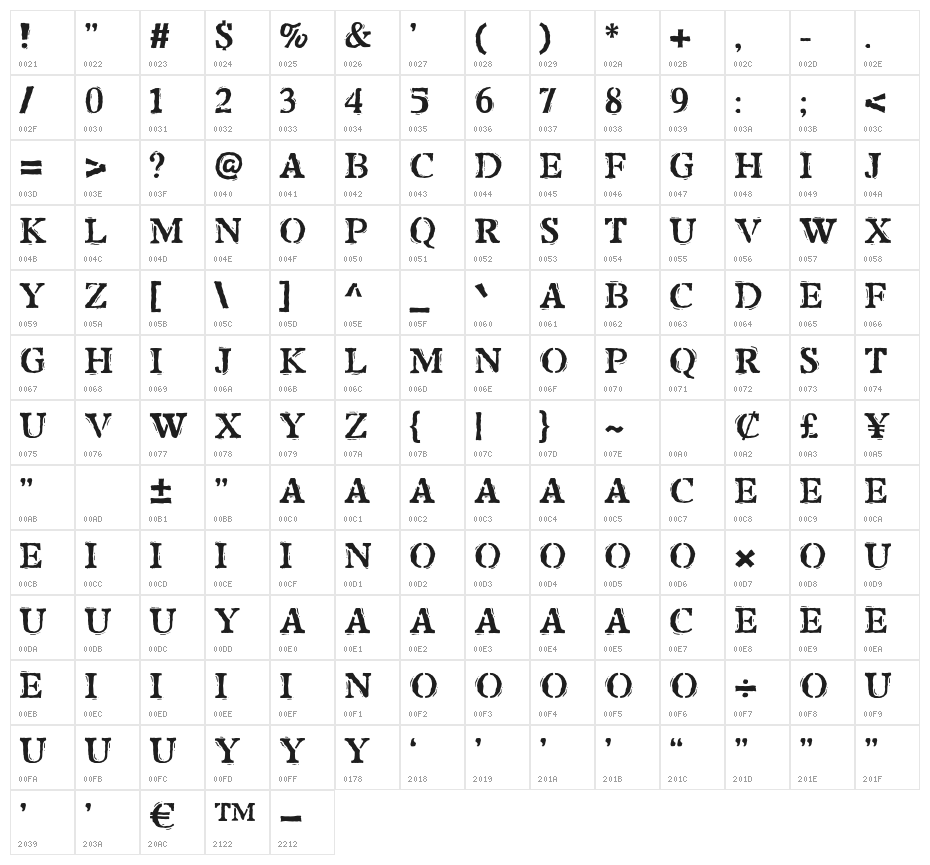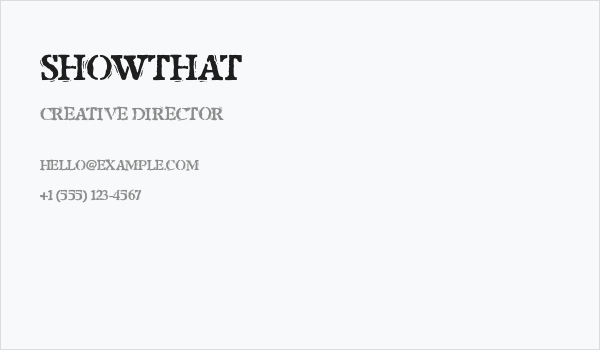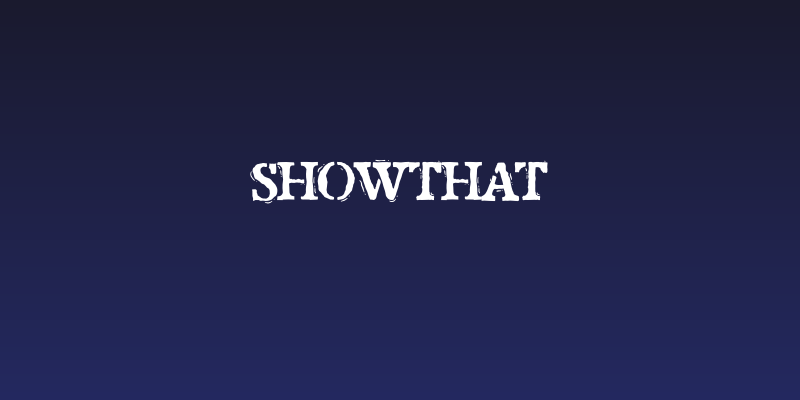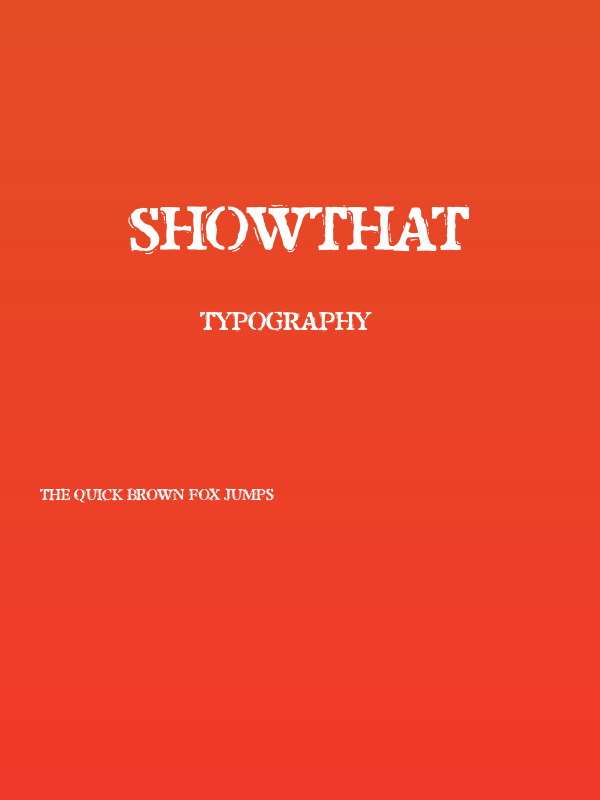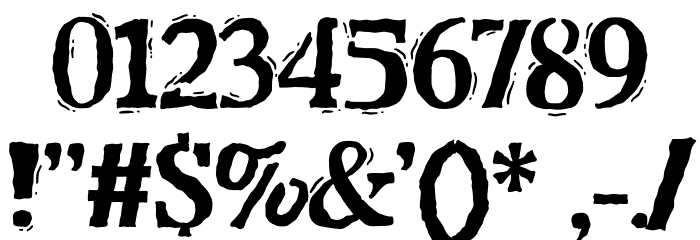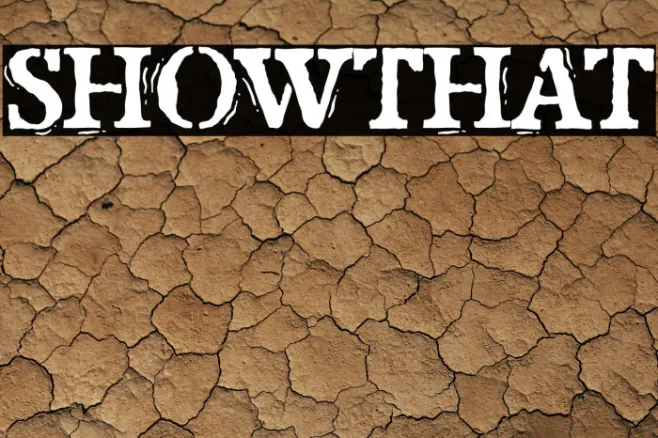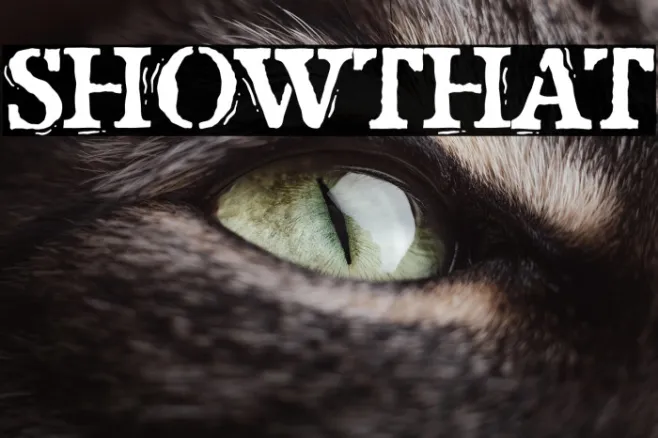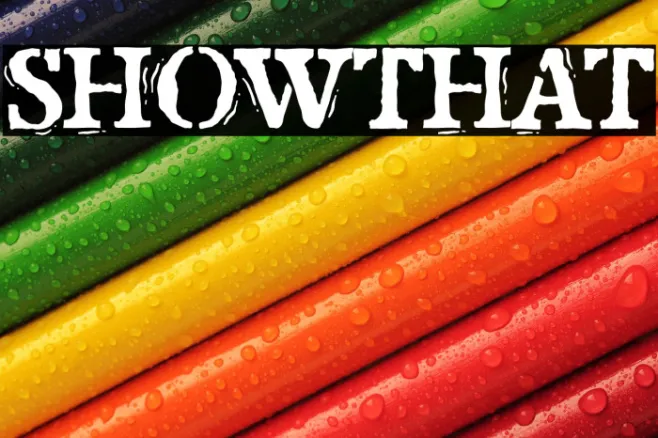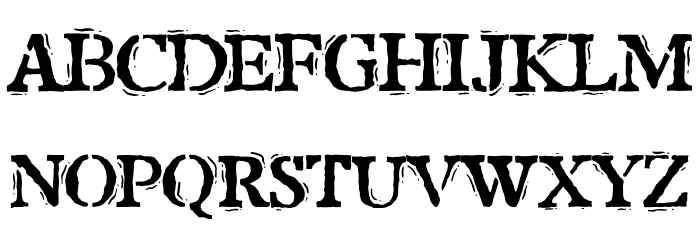
Showthat Font
This font features a bold and distressed style, with a rugged and textured appearance that gives it a vintage and worn look. The uppercase and lowercase letters are consistent in their rough edges, creating a cohesive aesthetic. The numbers and special characters maintain this distressed theme, making the font suitable for projects that require a rustic or grunge feel. The boldness of the characters ensures high visibility, while the unique texture adds character and depth.
| Overall Style | Vintage, Grunge |
| Proposed Projects | Ideal for posters, album covers, branding for rustic or vintage-themed products, and any design needing a bold, textured look. |